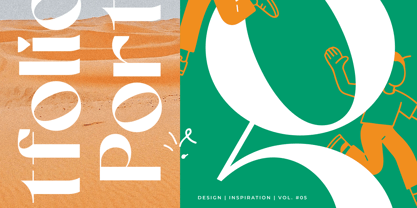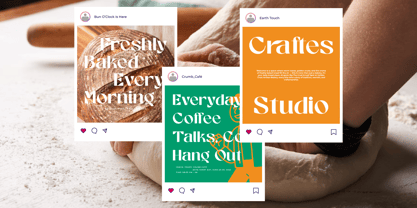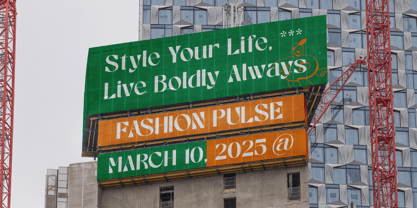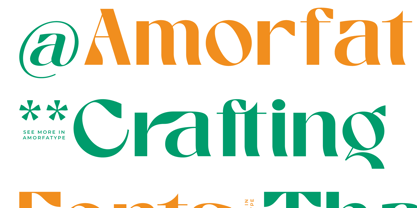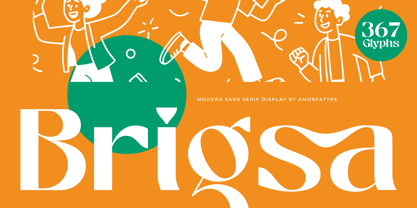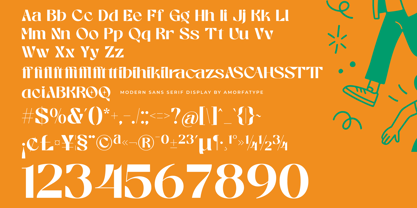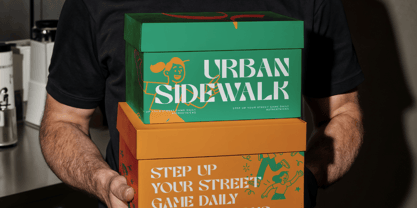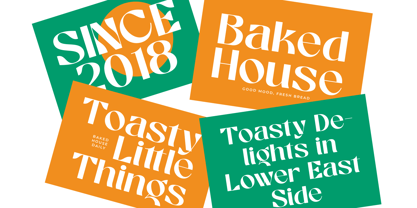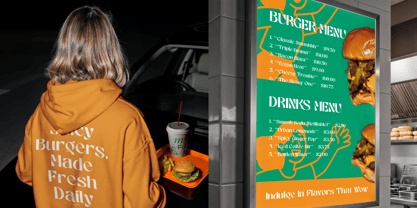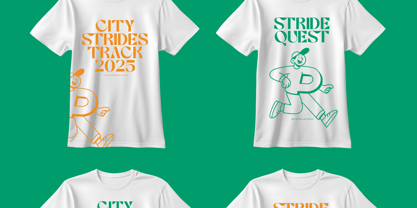
Brigsa
by Amorfa Type
The Brigsa Font Family was designed by Shiddiq Roihan and published by Amorfa Type. Brigsa contains 2 styles and family package options.
Brigsa – A Modern Sans Serif Display Font by Amorfatype
Brigsa is a bold and stylish modern sans serif display font designed to make a strong statement. With its clean lines, geometric balance, and contemporary character shapes, Brigsa delivers clarity and strength in every letterform. This typeface is crafted for impact — perfect for visual identities that require both elegance and authority.
Ideal for branding, editorial headlines, web design, and modern packaging, Brigsa offers versatility across digital and print platforms. Its precise structure and minimalist aesthetic make it suitable for both bold display settings and refined design projects. Brigsa is your go-to font when you want a fresh, modern sans serif with a confident tone.